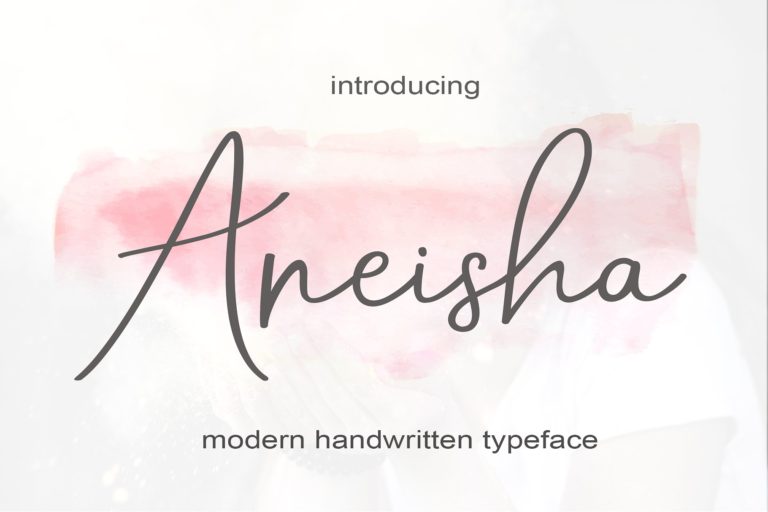
Aneisha Script Font
Continue to be a product of MrLetters, a professional designer with lots of beautiful products that we already know. Introducing Aneisha Font. Aneisha is a modern calligraphy font with the current handwriting style, this font is perfect for branding, wedding invites, magazines, mugs, business cards, quotes, posters, and more, you can try first if you want to buy this font. Aneisha is available in many versions, so you can customize the best for your design.